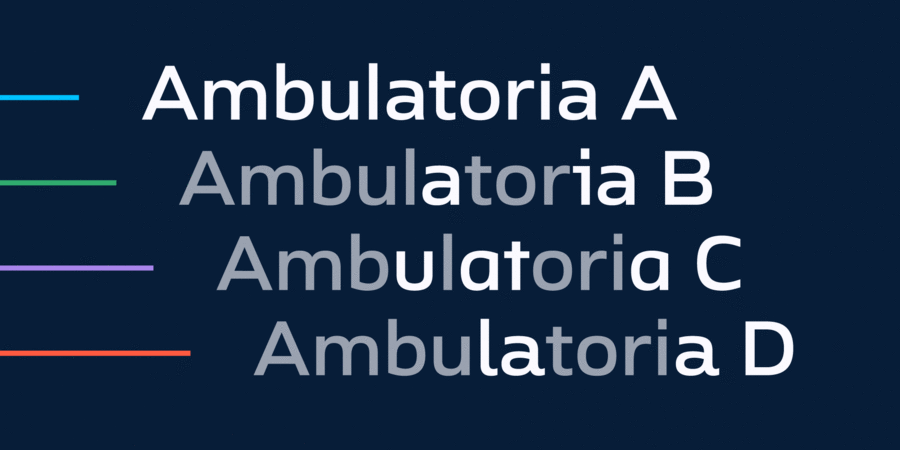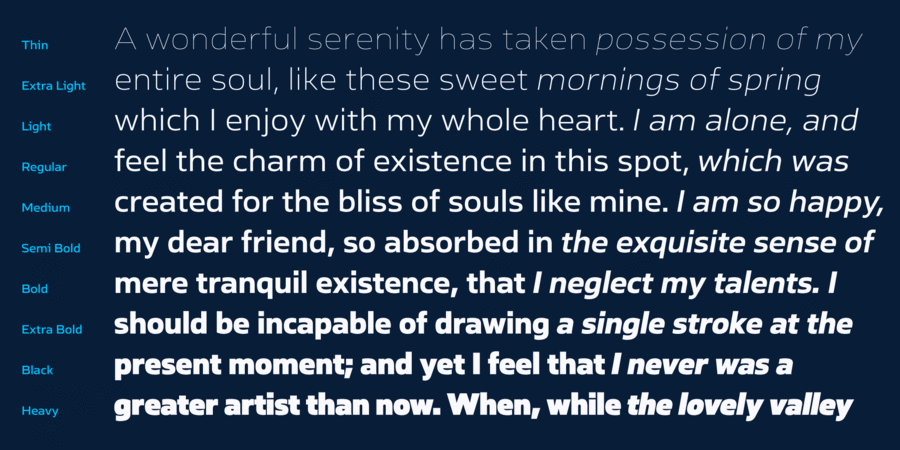
About Ambulatoria A is the first of four sets in the superfamily.
Ambulatoria is a sturdy open aperture sans-serif typeface that comes in four variations. Each variation, A, B, C, and D, contains alternative variants for certain glyphs that allow the designer to change character and texture of the text.
This superfamily contains 80 font styles altogether, each sporting rich language support including pan-European Latin and Cyrillic. The typeface is intended to work in both large and small text sizes, which makes Ambulatoria a versatile workhorse.
The typeface was designed by Oleh Lishchuk in 2022.